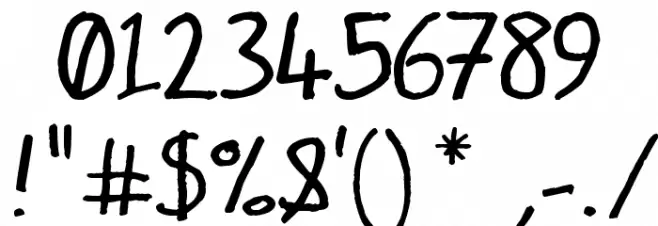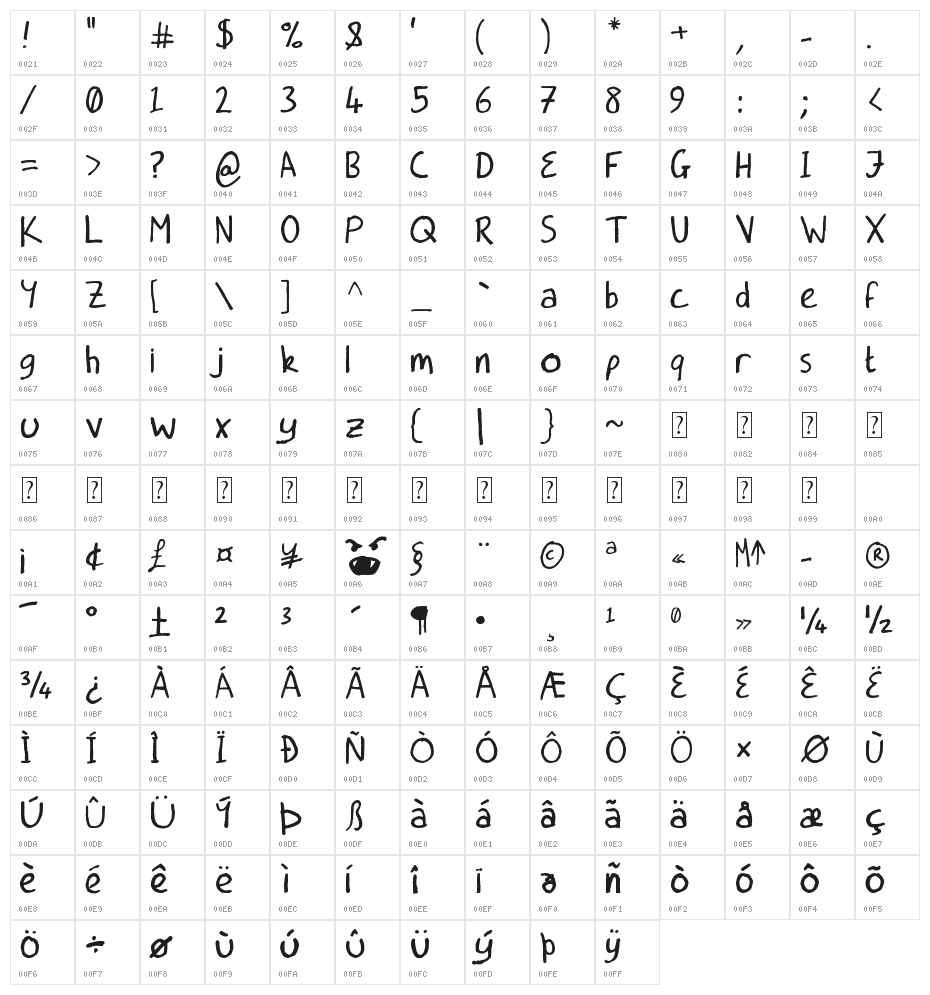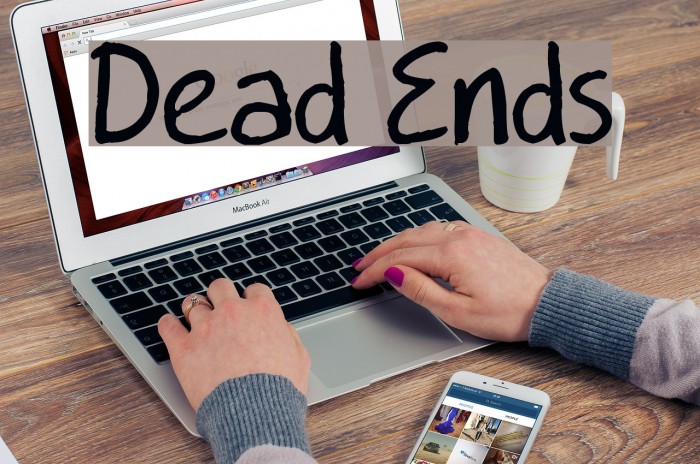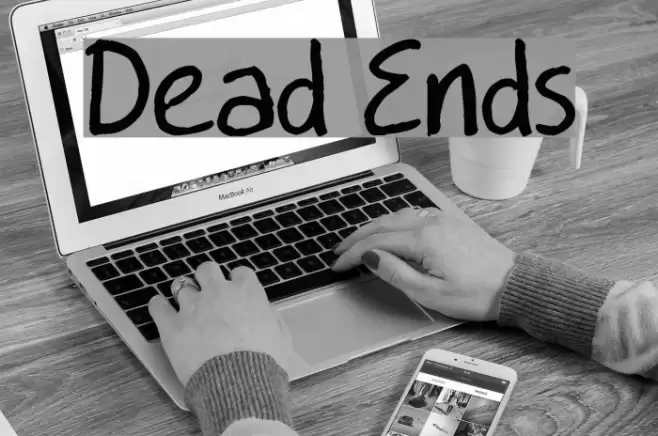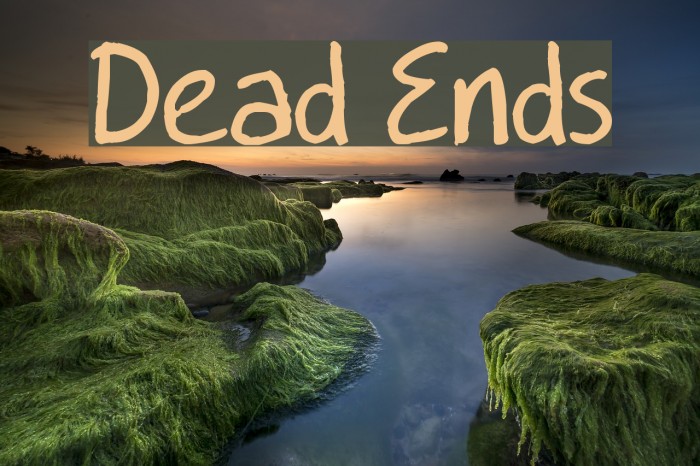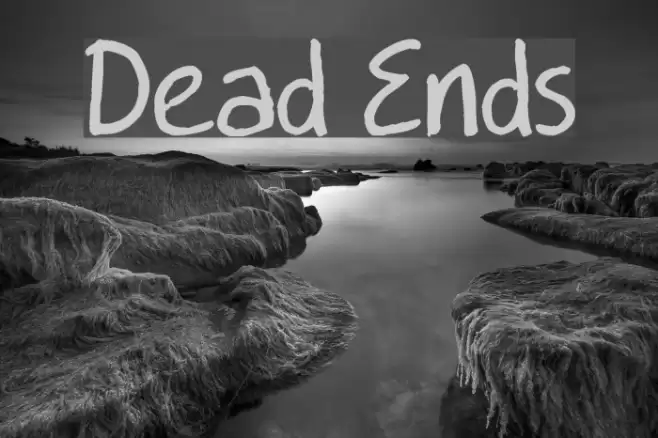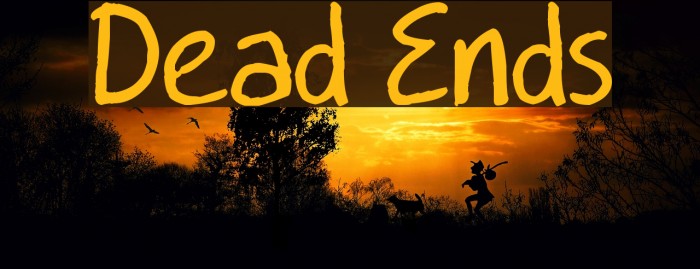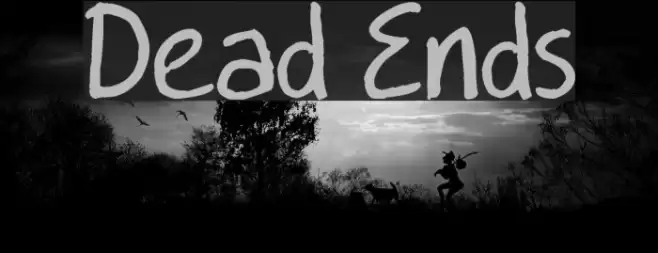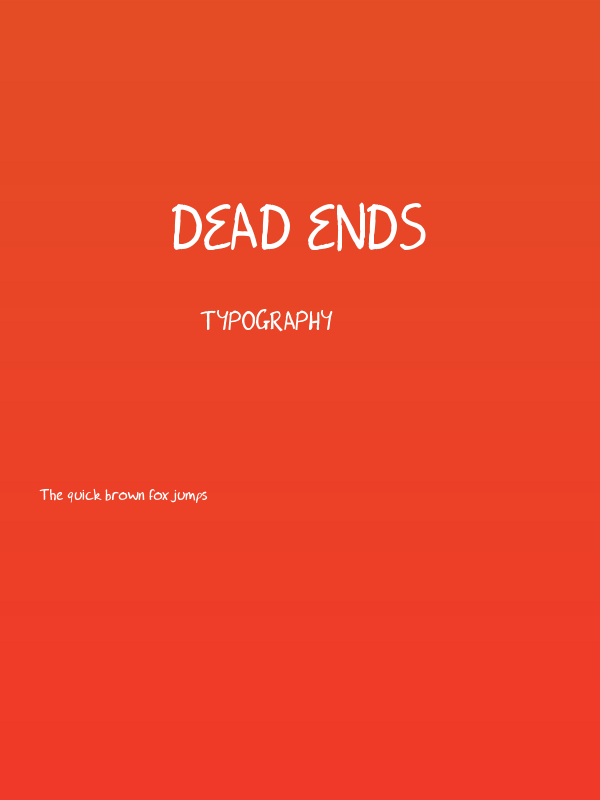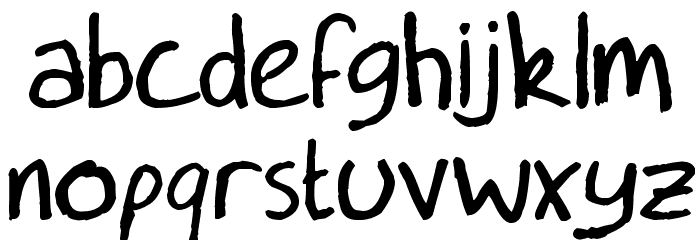
Dead Ends Font
Dead Ends Description
This font features a playful and casual handwritten style, characterized by its uneven strokes and slightly irregular letterforms. The uppercase and lowercase letters maintain a consistent flow, giving it a natural and organic appearance. The numerals and special characters follow the same informal style, making it suitable for projects that require a personal touch. The strokes are moderately thick, providing good readability while retaining a relaxed vibe. This font is ideal for creative projects where a human touch is desired, such as invitations, greeting cards, or informal branding.
| Proposed Projects | Ideal for invitations, greeting cards, informal branding, and creative projects. |